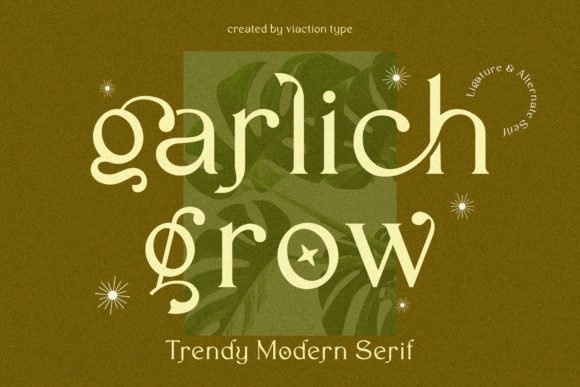
Discover the Magic of Garlich Grow Font
Do you remember the feeling of excitement when you finally find the perfect font to bring your creative project to life? For many designers, it’s a moment of pure joy, and it’s exactly what we’re about to share with you. Introducing the Garlich Grow Font, a trendy and elegant serif font that will add a touch of sophistication to any design.
With its chic and whimsical style, the Garlich Grow Font is the perfect choice for designers looking to create unique and beautiful designs. Whether you’re working on a branding project, a typography-based art piece, or a digital product, this font will make your creations stand out from the crowd. And with its PUA encoding, you’ll have access to all the glyphs and swashes you need to bring your design to the next level.
Key Features of Garlich Grow Font
- Unique Characteristic: The Garlich Grow Font features a unique, organic design with a ‘growing’ effect, where the letters appear to expand and contract.
Garlich Grow Font Review
Overall, I was excited to dive into the “Garlich Grow Font” and see what it had to offer. Here are my honest thoughts.
- The unique character set and creative flair in this font caught my eye. It’s perfect for those looking for something a bit unconventional.
- The font’s ability to convey a sense of whimsy and playfulness is great for projects that require a lighthearted tone.
- The font is highly legible, even at smaller sizes, which is essential for digital applications.
- The font’s complexity may make it difficult to pair with other fonts, which could limit its use in certain projects.
- The font may not be suitable for professional or formal applications due to its playful nature.
- The font’s character set is not as comprehensive as some other fonts, which could be a limitation for projects requiring specific symbols or characters.
In conclusion, the “Garlich Grow Font” is a great choice for those looking for a unique and playful font. While it may have some limitations, its creative flair and legibility make it a great option for digital applications and projects requiring a lighthearted tone.